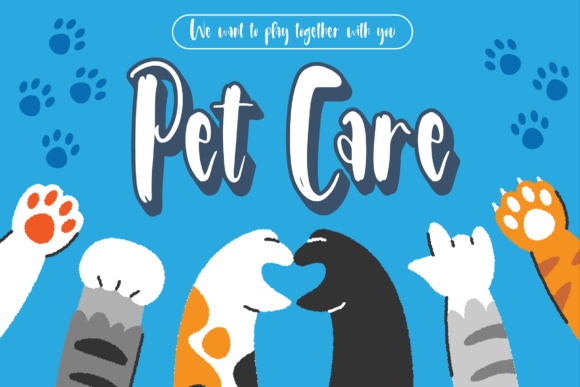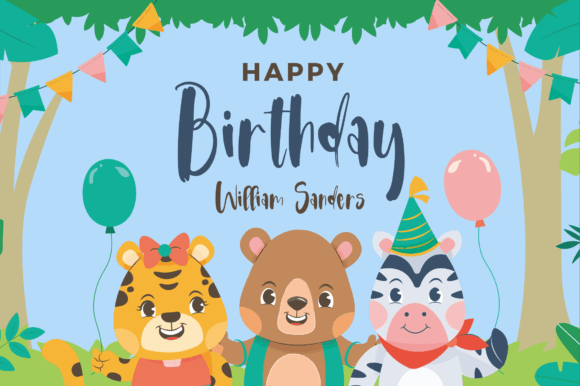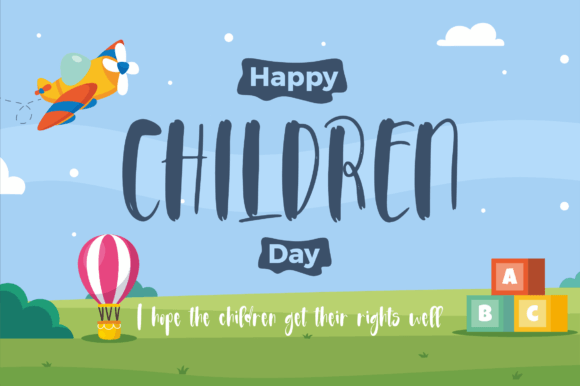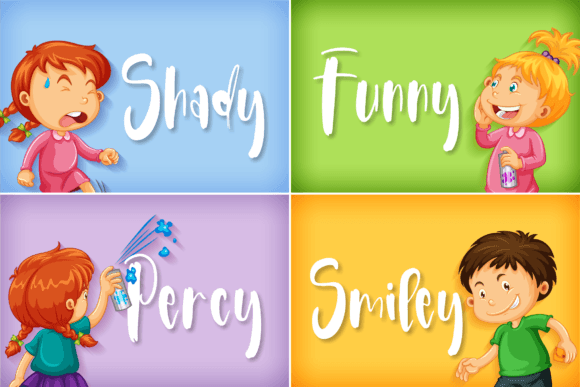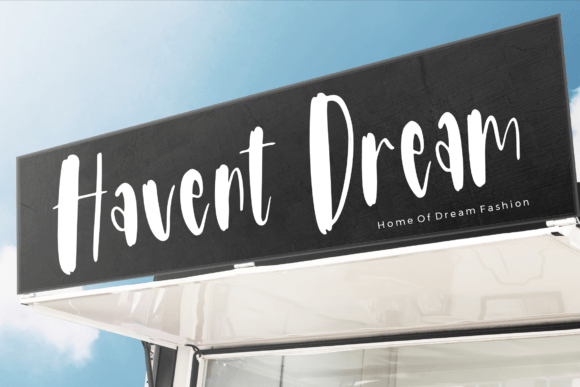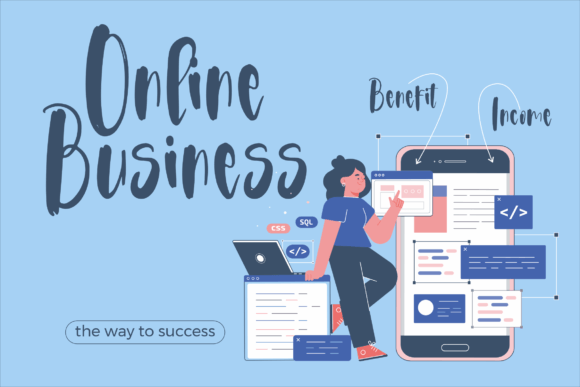
Discovering the Perfect Script: Chavezlafia Butter Font
Have you ever stared at a blank page, searching for the perfect font to bring your creative vision to life? It’s a feeling many designers know all too well – the excitement and frustration of finding the perfect script to capture the essence of your project. For designers and creatives, the search for that perfect font can be a daunting task, but what if we told you we’ve found a hidden gem?
Introducing Chavezlafia Butter Font, a playful handwritten font from Glorytype Studio, designed to elevate any project from logos to homeware designs. This versatile font is a valuable addition to any designer’s toolkit, offering a unique and beautiful script style that’s sure to make your projects stand out. With its wide range of applications, Chavezlafia Butter Font is a must-have for designers looking to add a touch of elegance and sophistication to their work.
Chavezlafia Butter Font Key Features
- Font Family: Chavezlafia Butter Font is a unique, handwritten script font.
- Unique Characteristics: This font features a mix of elegant and playful elements, making it suitable for a wide range of design projects, from invitations to branding materials.
Designer Review: Chavezlafia Butter Font
Overall, I’m quite impressed with the Chavezlafia Butter Font – it’s a fun, quirky font that could add some personality to a design. ✨
- Unique Character Set: The font’s eclectic character set is reminiscent of hand-drawn illustrations, which can be a great asset in certain design contexts.
- Variety of Weights: The font comes in multiple weights, allowing designers to choose the perfect style to match their design needs.
- Playful Feel: Chavezlafia Butter Font has a lighthearted, whimsical feel that’s perfect for creative or entertainment-based projects.
Limited Usage:
While I appreciate the font’s individuality, I do see some potential limitations. ⚠️
- Legibility Issues: At smaller font sizes, some of the characters can become difficult to read, which might limit its use in body text or other critical content areas.
- Limited Scalability: The font’s unique style may not be suitable for large-scale use, such as billboards or print advertisements, where legibility is paramount.
Overall, I think Chavezlafia Butter Font is a great addition to any designer’s toolkit – it’s perfect for adding a touch of whimsy to a project. Just be mindful of its limitations, and use it in contexts where its playful feel will shine through.
Chavezlafia Butter Font is a unique and elegant font perfect for:
Wedding invitations, event banners, and menus.
Branding and marketing materials, such as business cards and brochures.
Adding a touch of sophistication to digital documents, such as resumes and reports.